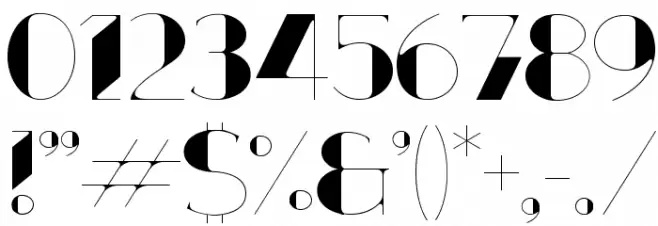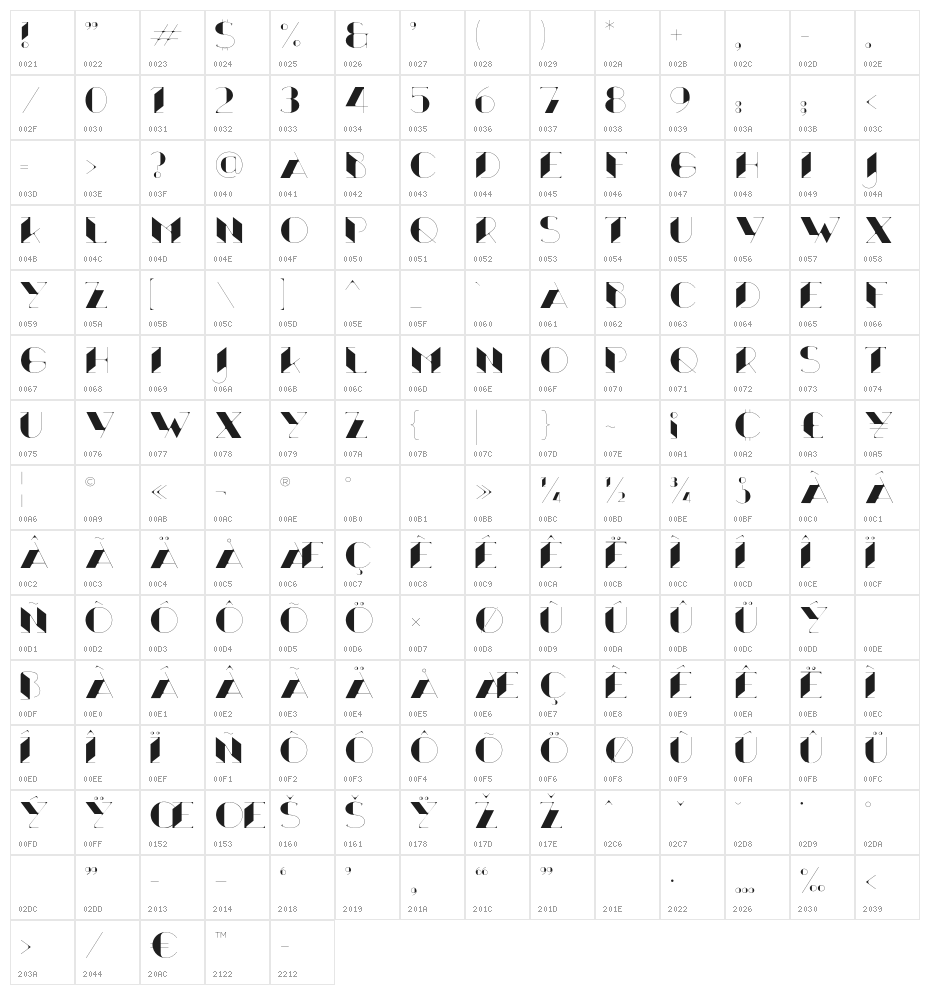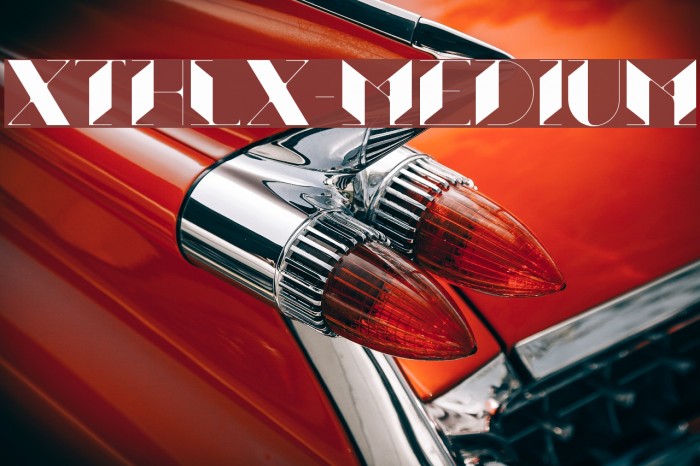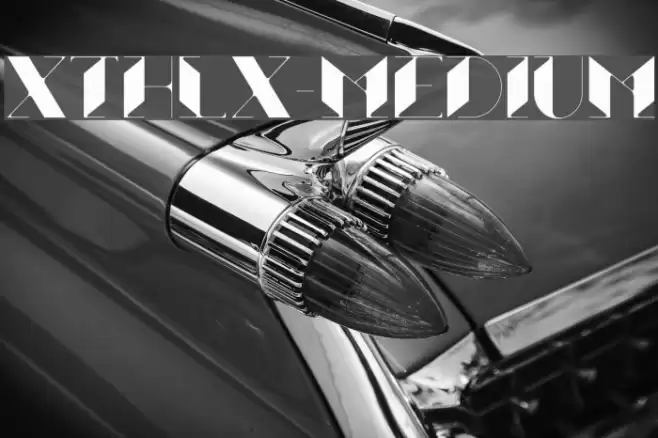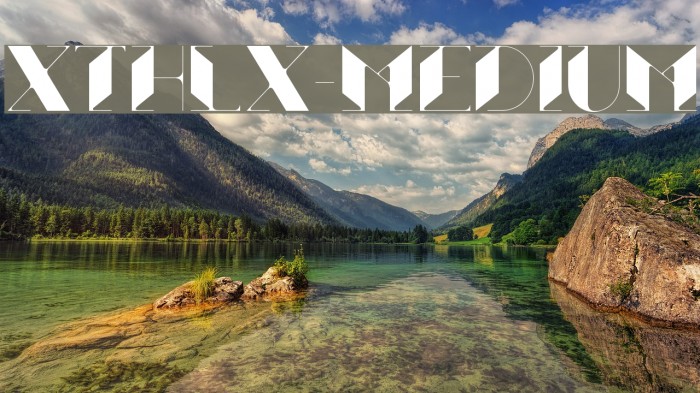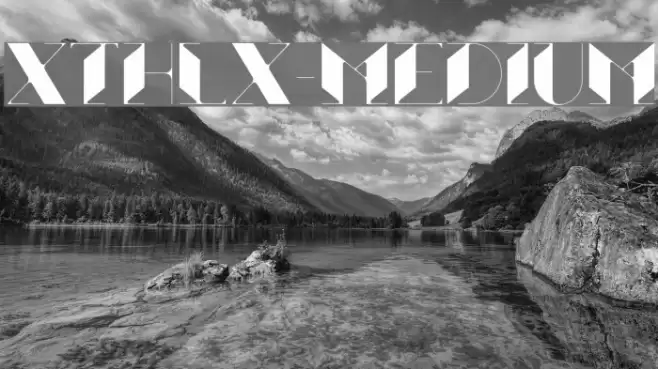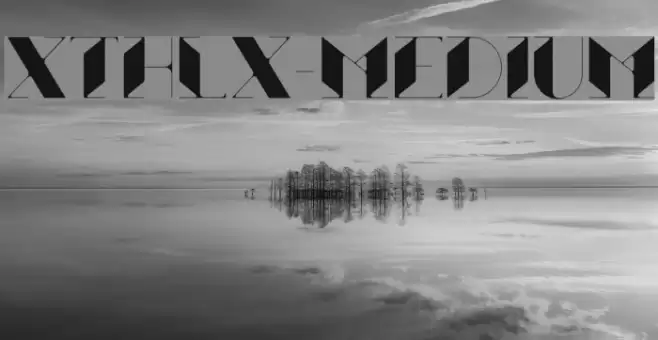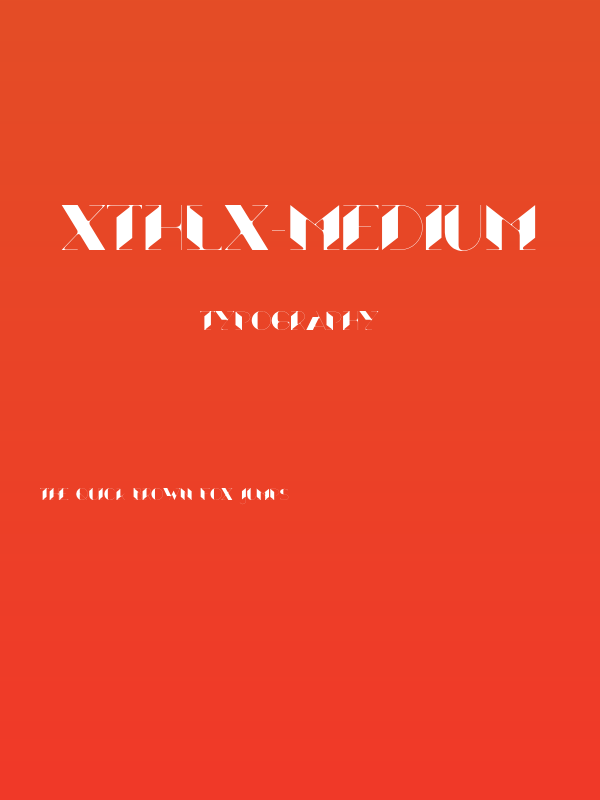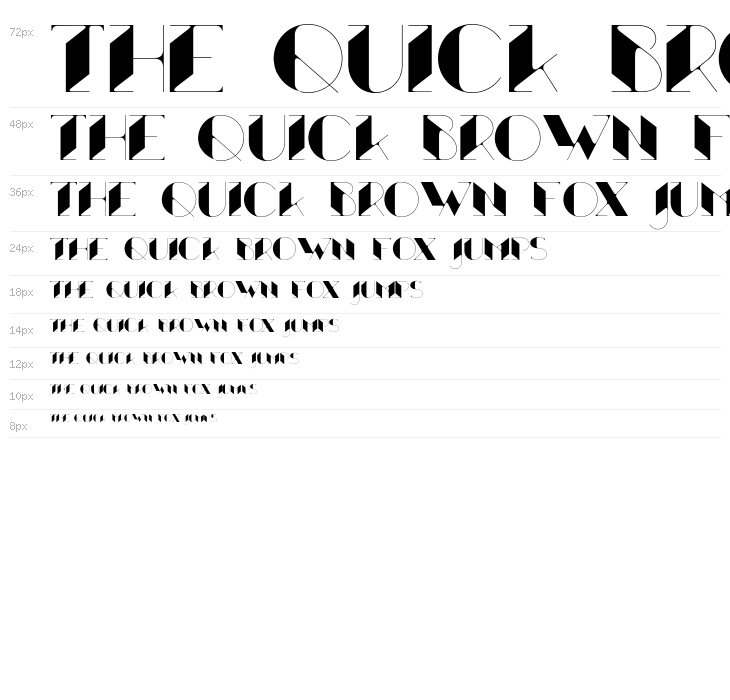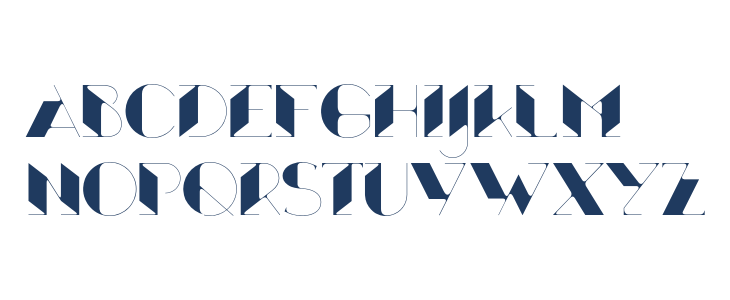
Xthlx-Medium Font
Xthlx-Medium Description
This font features a bold and geometric design with high contrast between thick and thin strokes. The characters are constructed with sharp angles and clean lines, giving it a modern and futuristic appearance. The uppercase letters are particularly striking, with unique cutouts and asymmetrical shapes that add a dynamic feel. The lowercase letters maintain the same geometric style, ensuring consistency throughout the typeface. Numerals are equally bold and distinctive, making them stand out in any design. The special characters are crafted with the same attention to detail, providing a cohesive look across all glyphs.
| Overall Style | Modern, Futuristic |
| Proposed Projects | Ideal for branding, poster design, and editorial headlines where a modern and striking appearance is desired. |